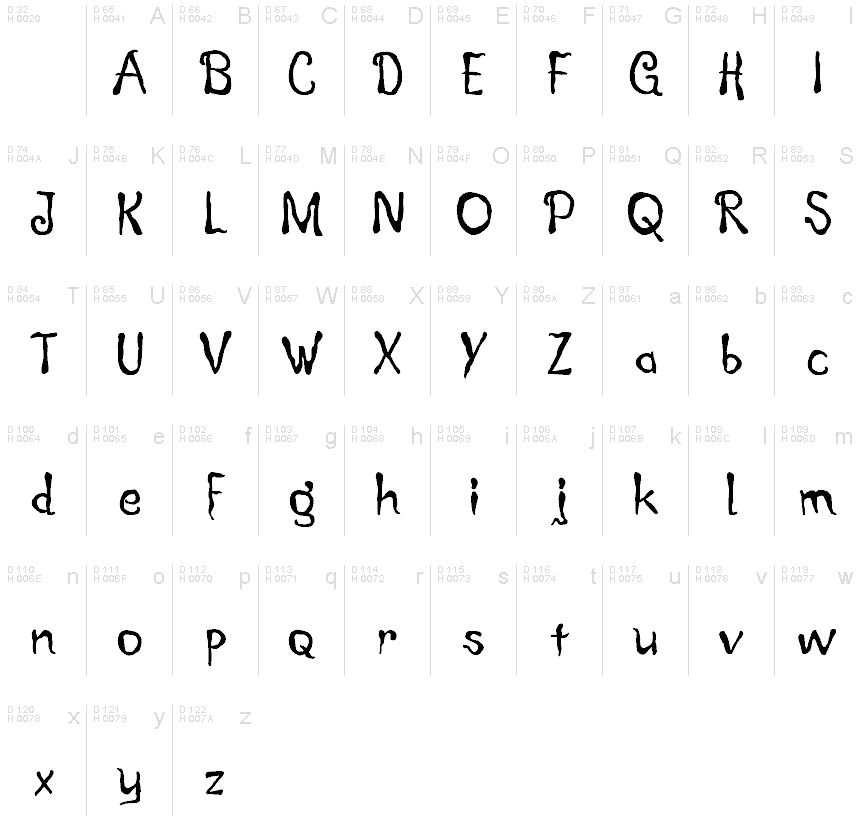
CS Banquet Regular Demo
CS Banquet font is a free handwritten font by Craft Supply Co. It carries with it a whimsical, informal, and casual vibe that always gives it an uplifting turn of hand. If you’re looking for the organic shapes gained with a hand-drawn feel within designs, this typography should provide all of this and more which include an unforgettable artistic flair.
Use it for headlines, holiday invitations, business cards, packaging labels, branding projects, wedding invitations, flyers/posters layouts or short editorial text in magazines. Use it artistically as well in logos since issues of readability are covered even in small sizes.